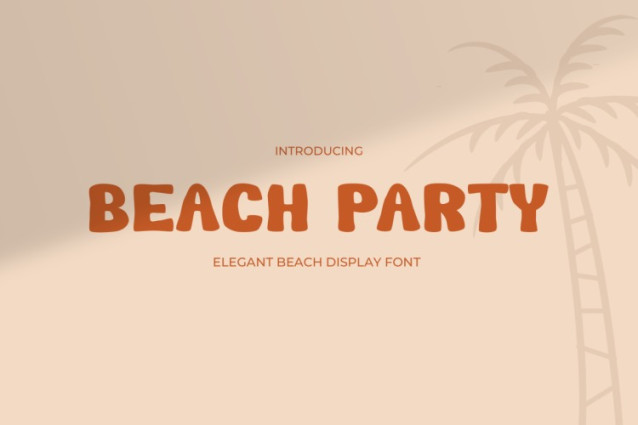
Beach Party Font
Beach Party Font is the perfect typeface to bring a sunny and tropical vibe to your designs. Moreover, inspired by the carefree energy of a beachside celebration, this font embodies fun, relaxation, and a playful aesthetic. With smooth, rounded edges and a slightly wobbly yet bold structure, it mimics the feel of hand-drawn letters in the sand. Whether designing summer posters, beach party invitations, or tropical branding, Funny Font Beach Party instantly transports your audience to a warm, breezy paradise.
This font combines a casual yet dynamic style, making it both approachable and eye-catching. Furthermore, the bold, slightly irregular lettering gives it a fun, laid-back feel, perfect for joyful and exciting designs. Additionally, the organic letter shapes contribute to its friendly personality, making any text feel personal and inviting. Its high readability ensures that your message stands out, whether in print or digital media. With its summer-inspired charm, this font is an excellent choice for projects looking to capture the spirit of beachside fun.